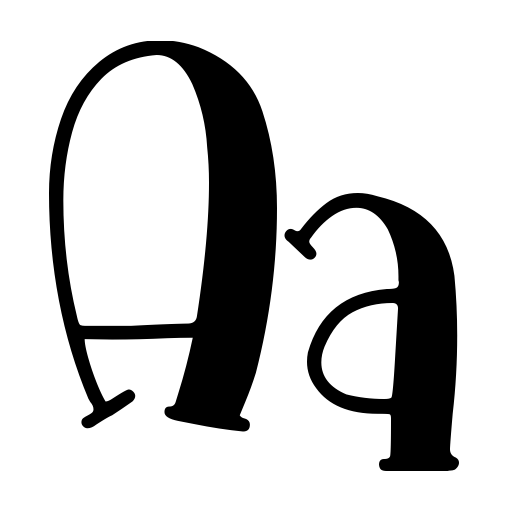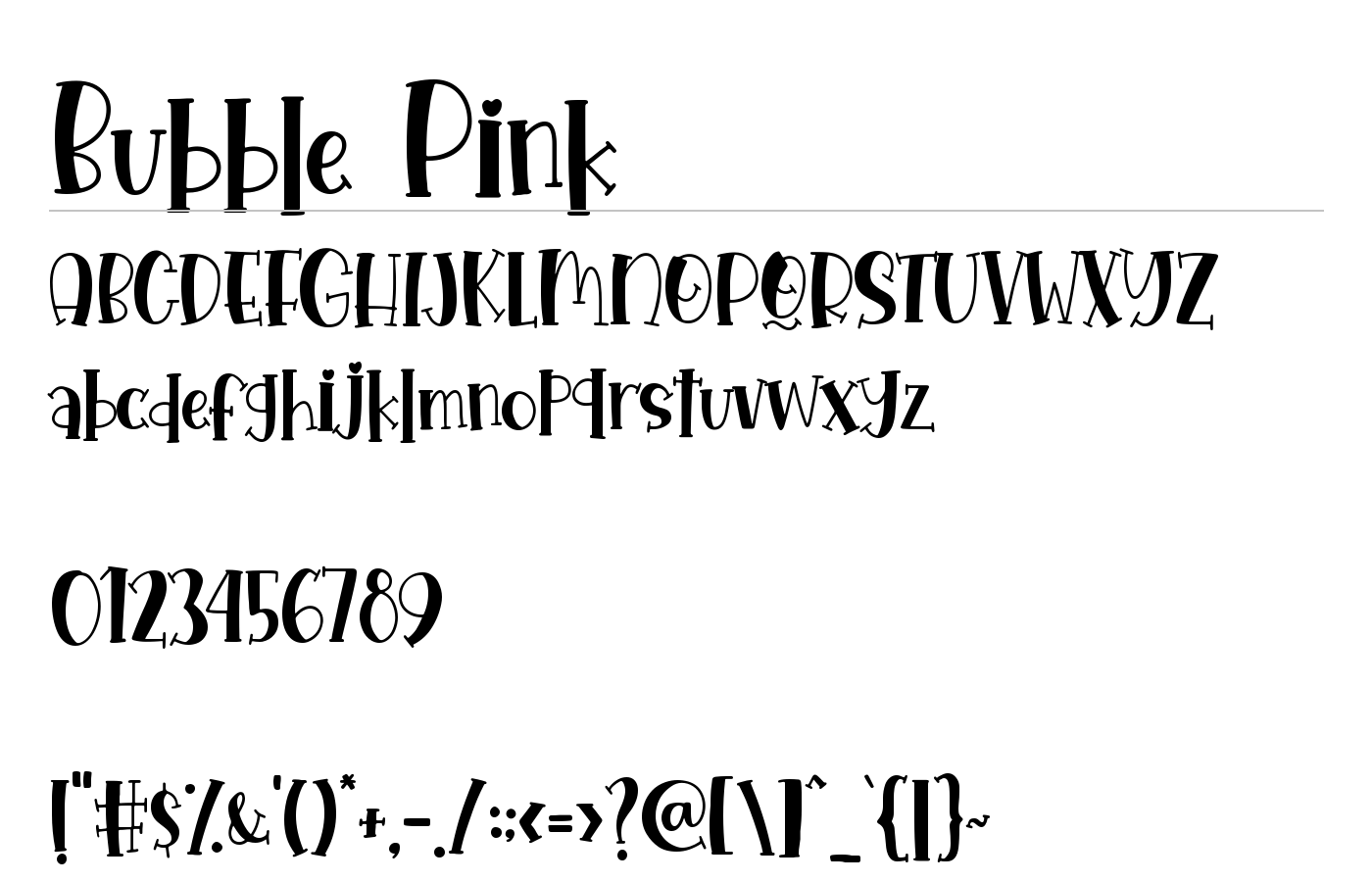
Bubble Pink Font is a playful and charming sans serif typeface with whimsical letterforms featuring uneven strokes and quirky details like heart-shaped dots and curly terminals. Its tall, narrow characters with moderate contrast give it a friendly and distinctive personality, making it ideal for fun, youthful designs such as children’s books, party invitations, or eye-catching branding. This font works best in headlines or decorative text where its unique style can shine and bring a lively, cheerful vibe.
Bubble Pink Font
About Bubble Pink Font
| Font family | Bubble Pink Font |
| Designer | Dimas Prasetyo |
| Trademark | Dm Letter Studio Bandung - Indonesia |